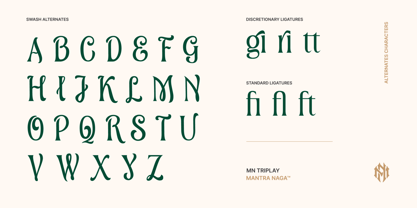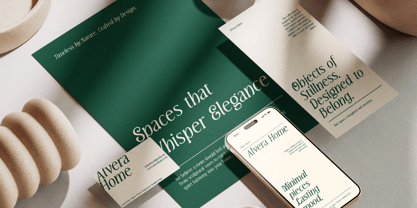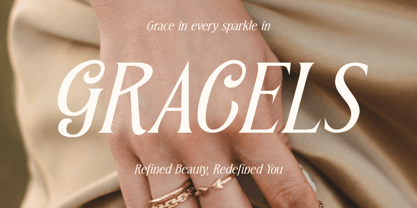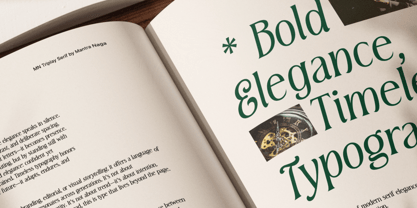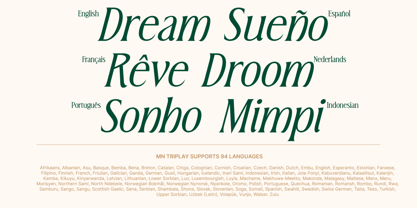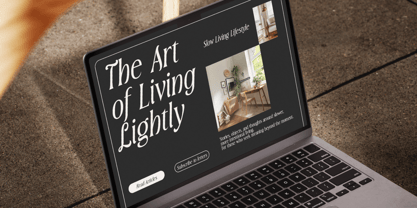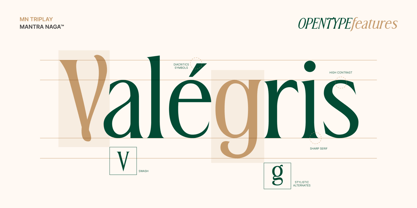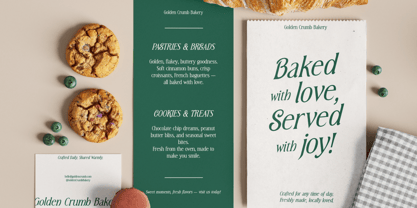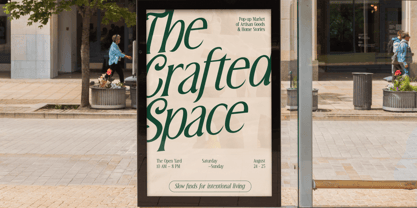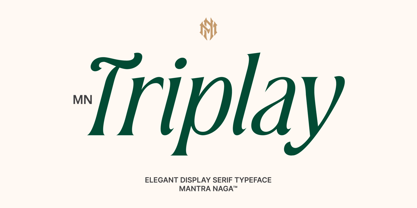
MN Triplay Serif
by Mantra Naga Studio
The MN Triplay Serif Font Family was designed by Fredo Eka Pratama and published by Mantra Naga Studio. MN Triplay Serif contains 2 styles and family package options. More about this family
MN Triplay is a modern elegant serif display font with a distinctive twist. What makes it stand out is its set of alternate uppercase characters that blend script-like flair with traditional serif structure, creating a unique and stylish tone.
If you're familiar with our Mantova font, MN Triplay follows a similar concept but offers a more extensive glyph set and more balanced stroke contrast, making it more versatile across design contexts.
MN Triplay comes in two styles: Upright (Regular) and Italic. While it's designed primarily for display purposes such as headlines, branding, or logos, it also works beautifully in editorial layouts and long-form text with the right typographic treatment.